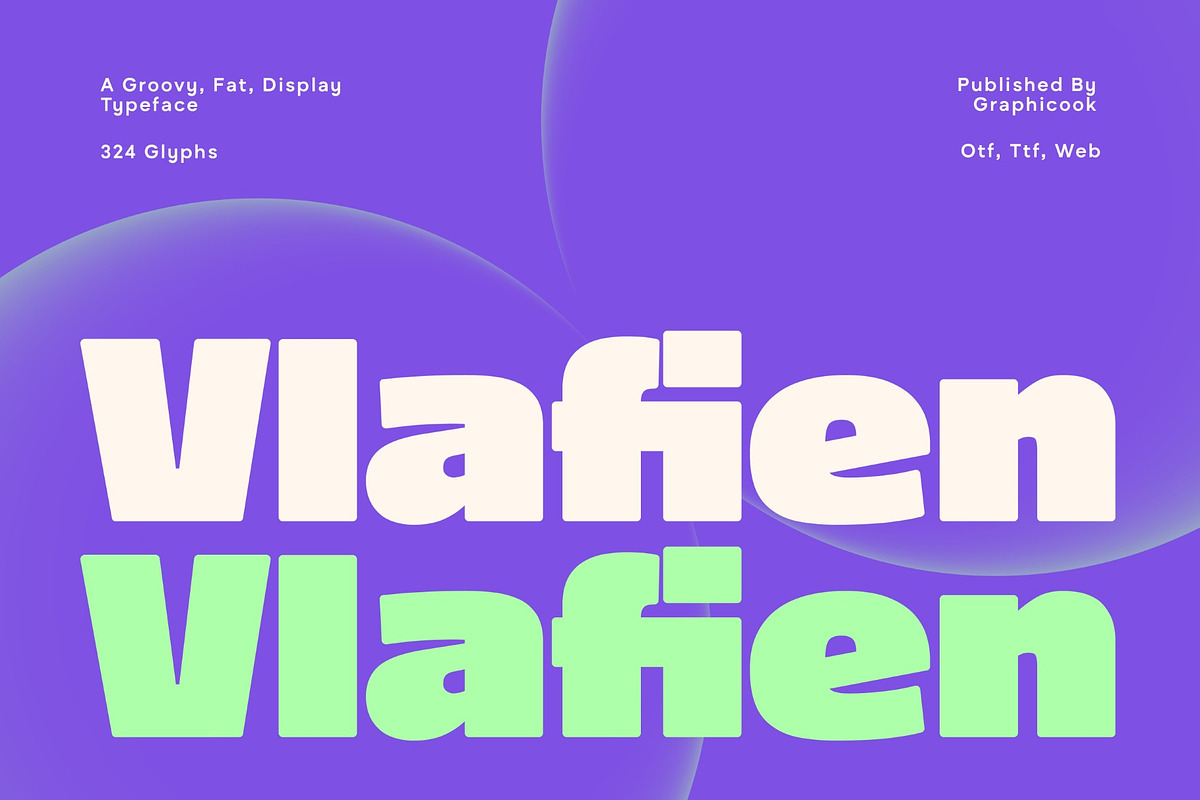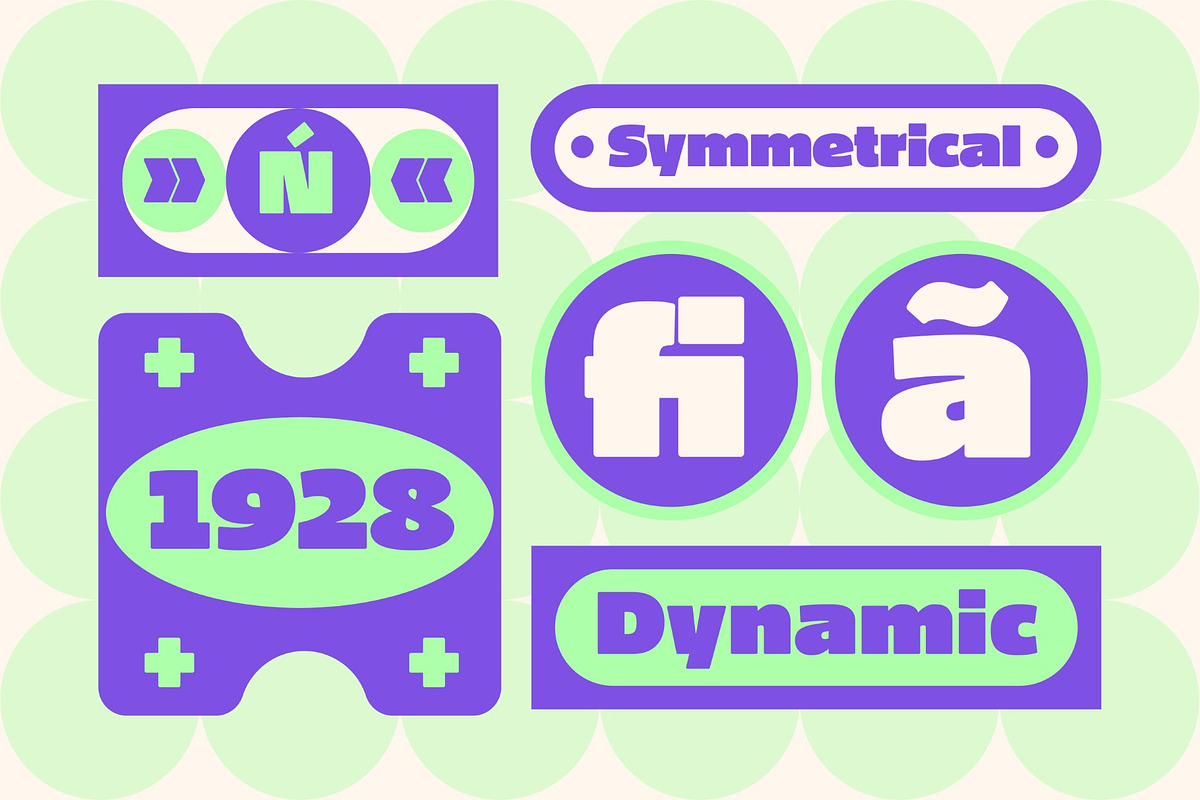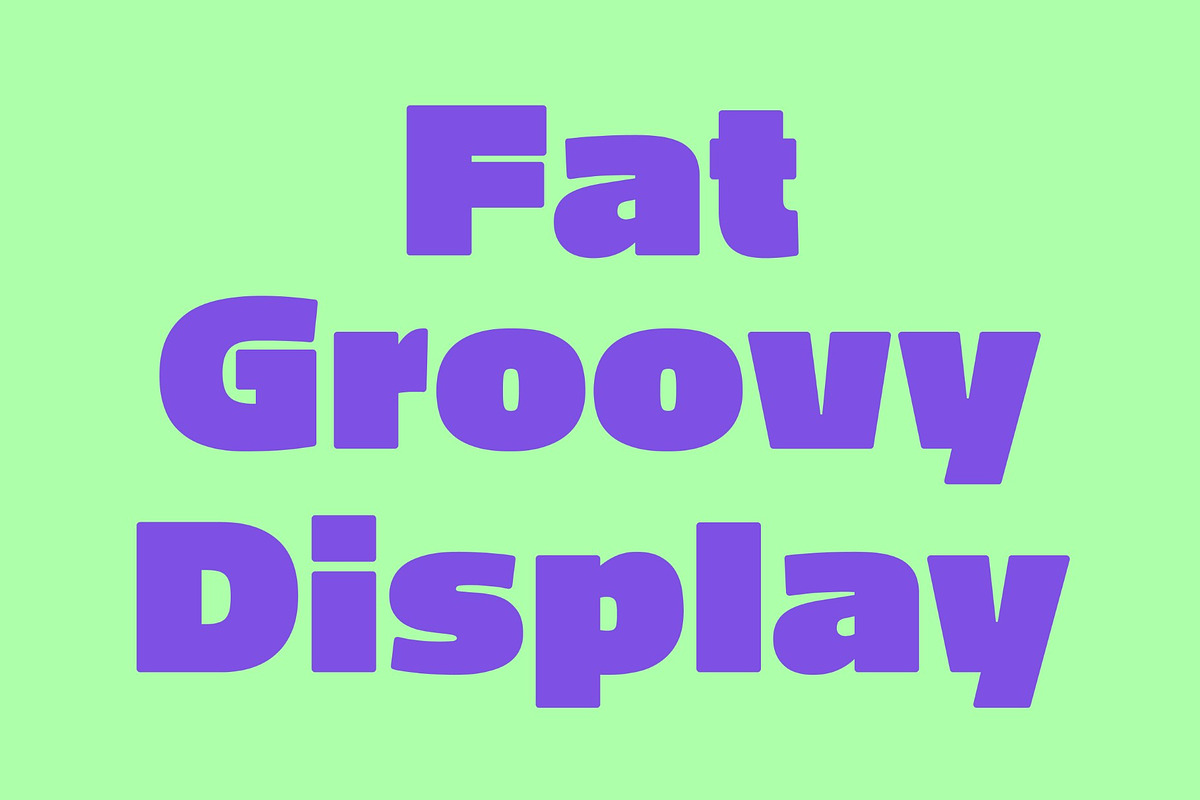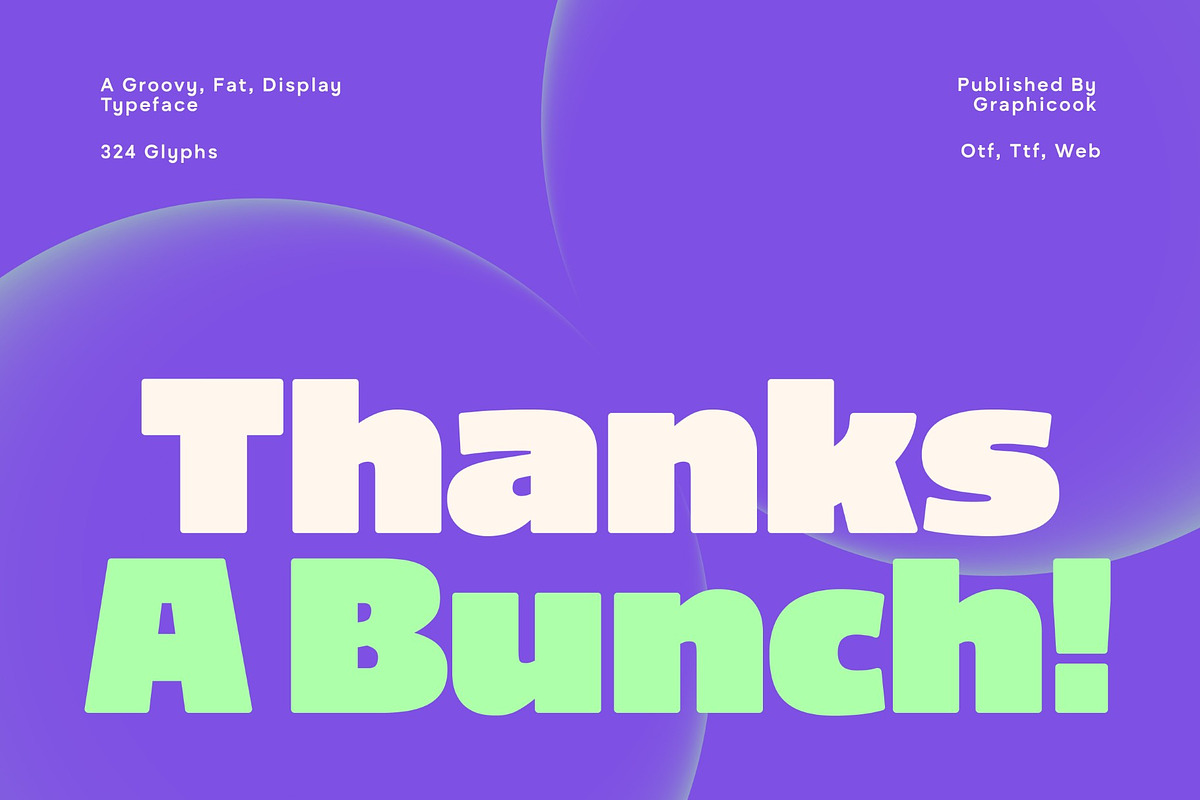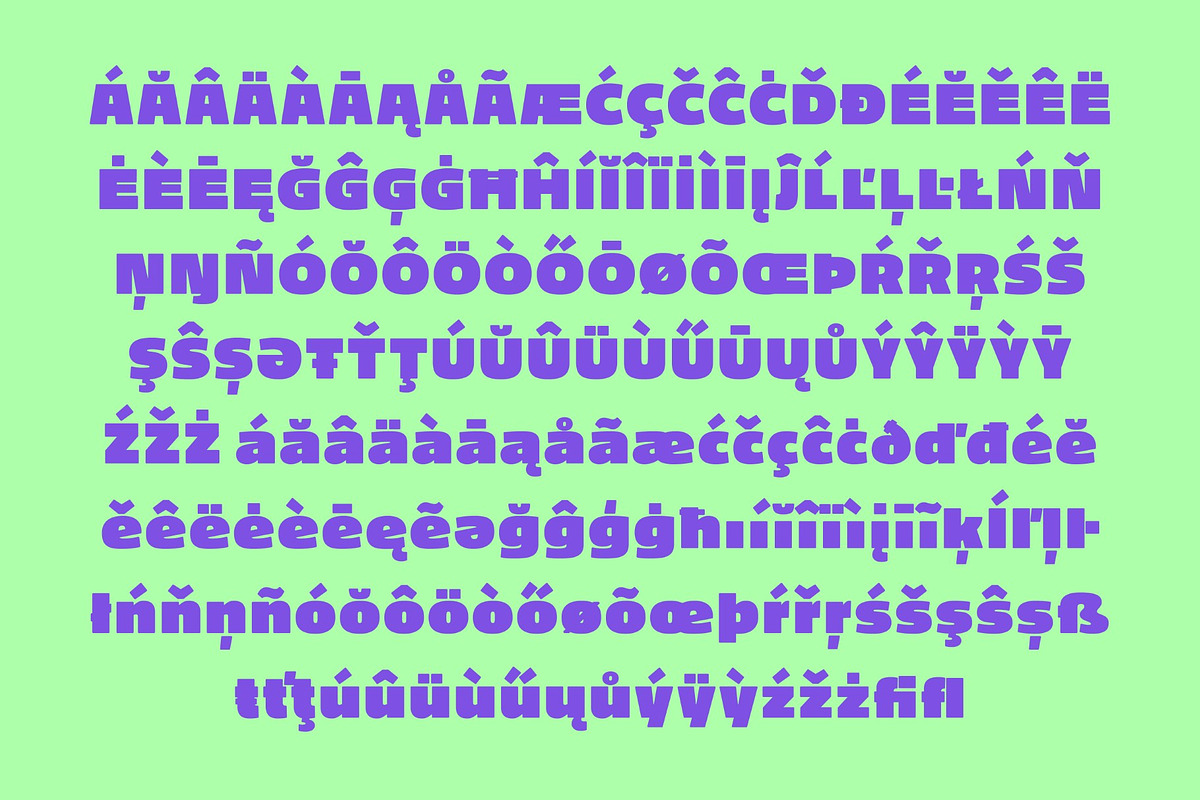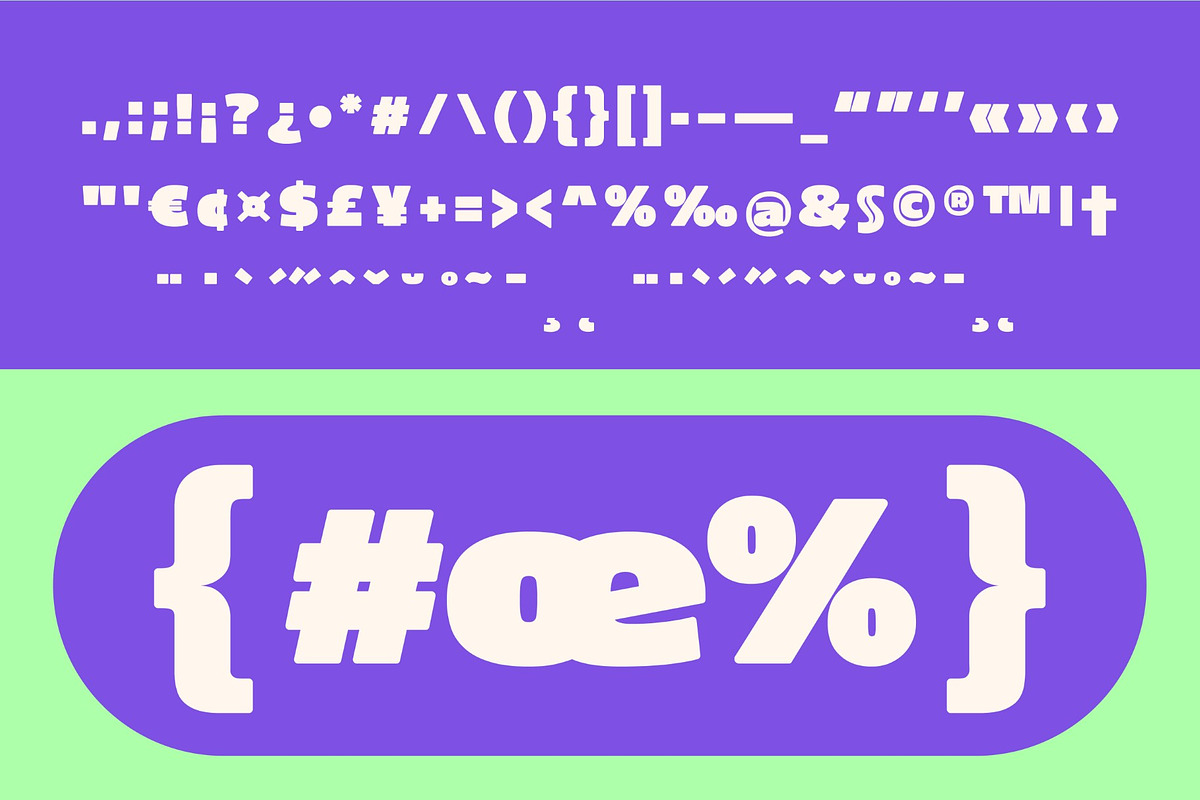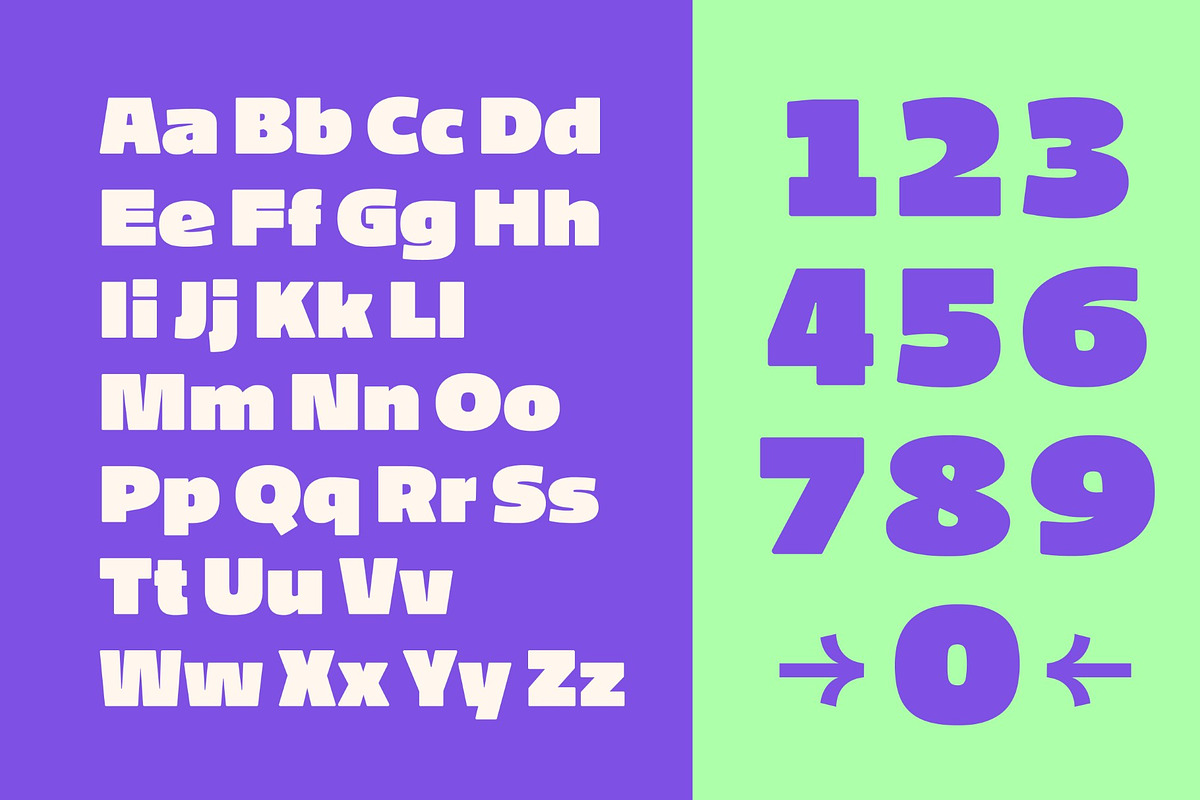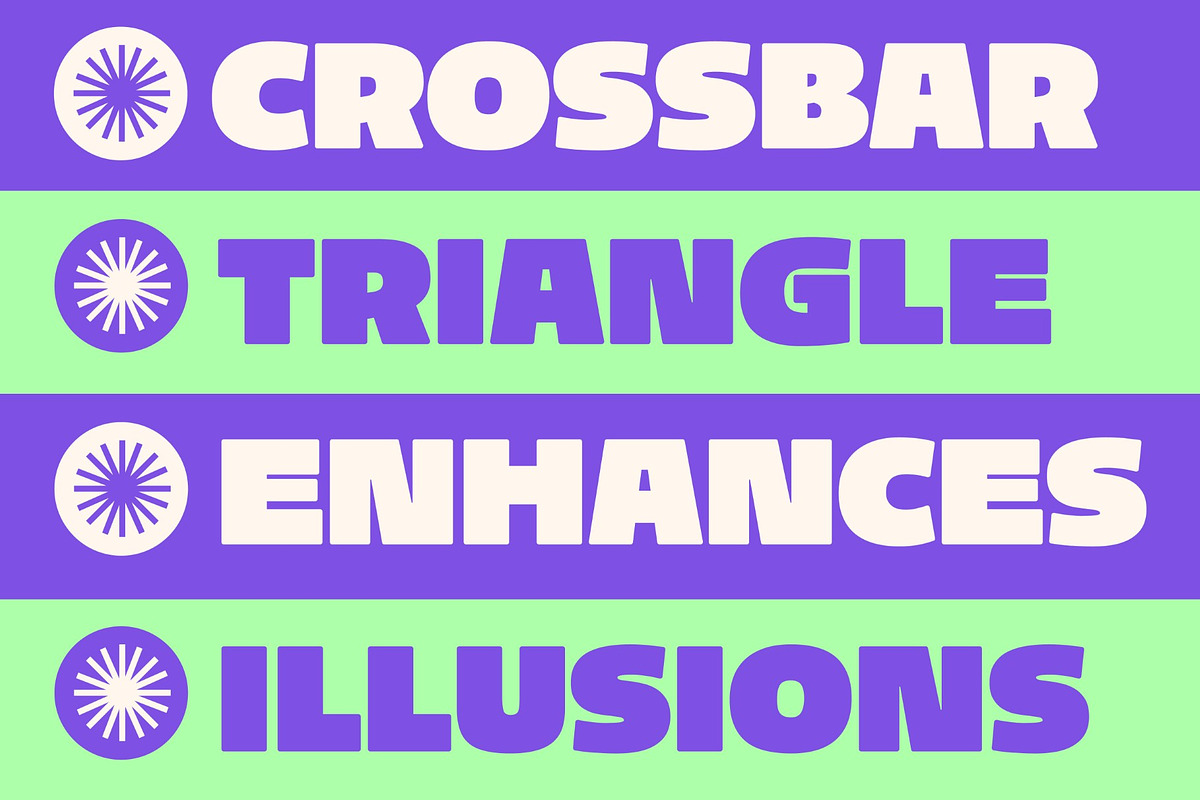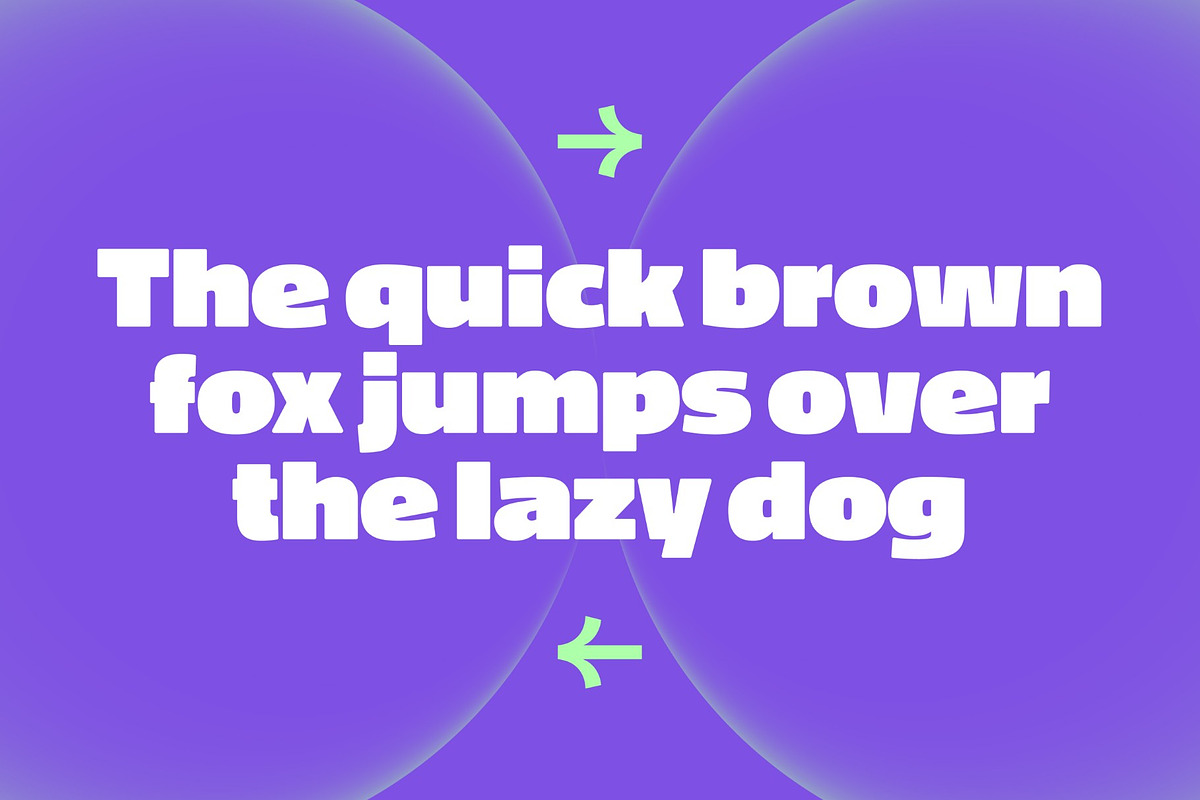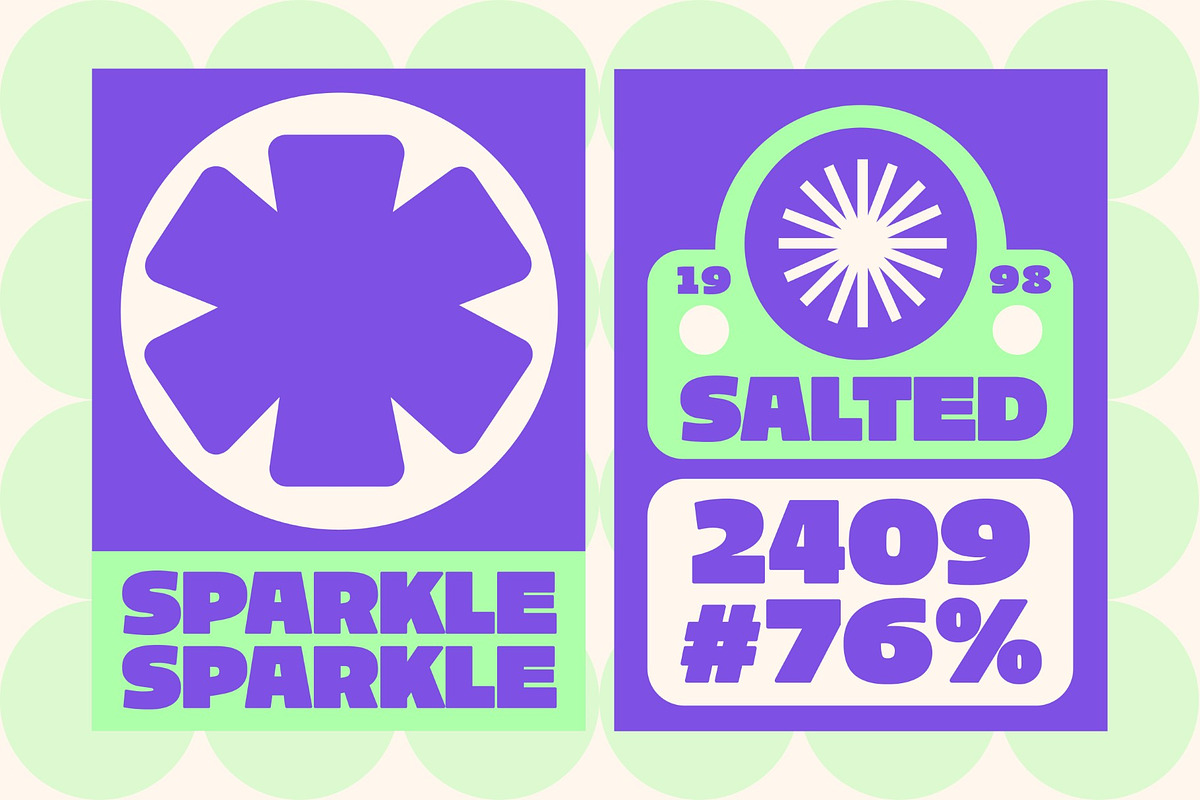
Vlafien
Vlafien is a groovy, fat display font with large letterforms, wide proportions, and thick strokes that create a bold yet playful look. It works perfectly as a headline font or for key visual elements that need to stand out.
It is perfect for headlines, logotypes, magazines, packaging, quotes, movies, games, cover albums, book covers, and flyers, it's a perfect solution for creating eye-catching designs that stand out in any context.